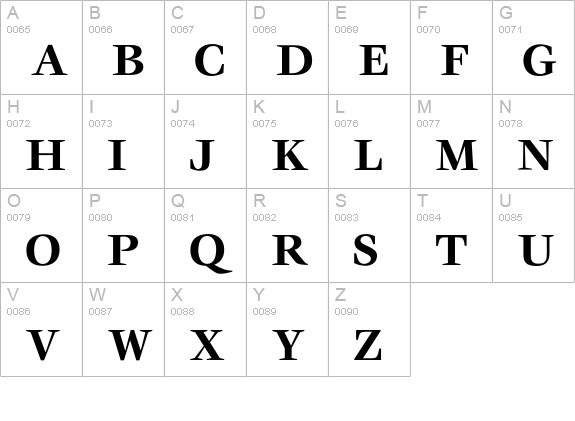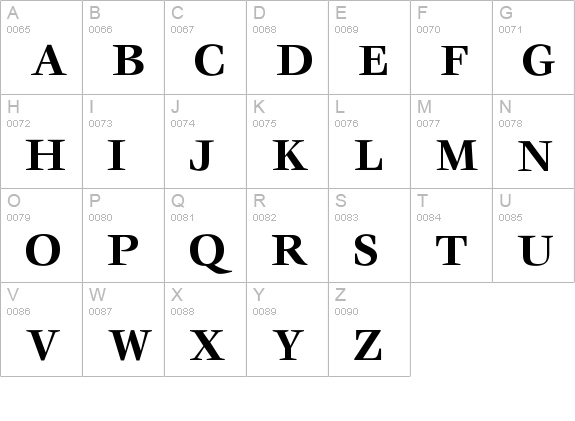
VeljovicBold Font Details
VeljovicBold is a stunning font that exudes elegance and sophistication. With its bold and strong letterforms, this typeface commands attention and makes a statement. Developed by renowned typographer Jovica Veljovic, VeljovicBold seamlessly combines classic and contemporary design elements, resulting in a truly timeless font. This versatile typeface is perfect for various design projects, from branding and packaging to editorial layouts and advertising. Its confident and assertive appearance adds a touch of professionalism and authority to any visual composition. Whether used for headlines or body text, VeljovicBold ensures legibility and readability, making it a reliable choice for both print and digital applications. One of the most remarkable aspects of VeljovicBold is that it is freely available to download at FontsMarket.com. This means that designers, artists, and anyone in need of a high-quality font can access it without any cost. This generous offer allows for endless possibilities and creative exploration, making VeljovicBold accessible to all. The clean and precise curves of VeljovicBold's letterforms create a sense of harmony and balance, while the sharp edges add a touch of modernity and edge. This combination of classic and contemporary design elements gives the font a unique personality that sets it apart from other typefaces. Overall, VeljovicBold is a remarkable font that offers a perfect balance between elegance and modernity. Whether you are working on a professional project or simply looking to enhance your personal creations, VeljovicBold is a font that will exceed your expectations. Download it for free at FontsMarket.com and unlock the endless possibilities that this exceptional typeface has to offer.